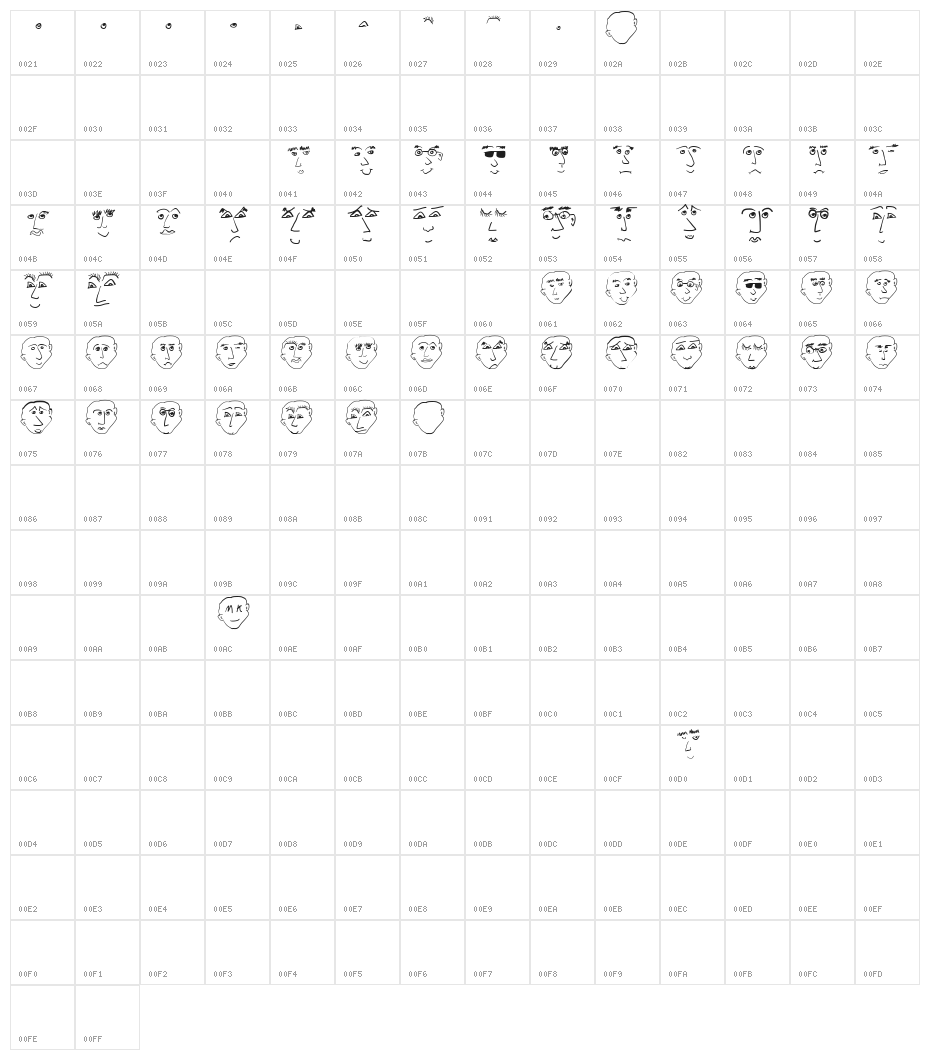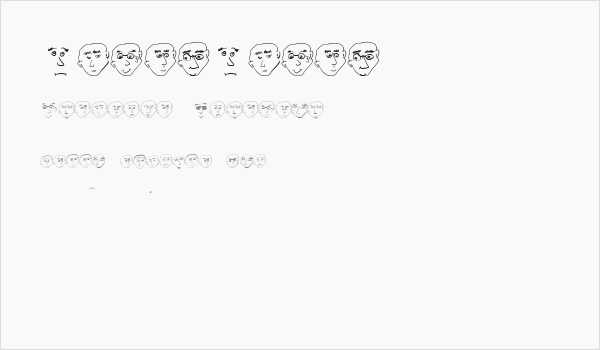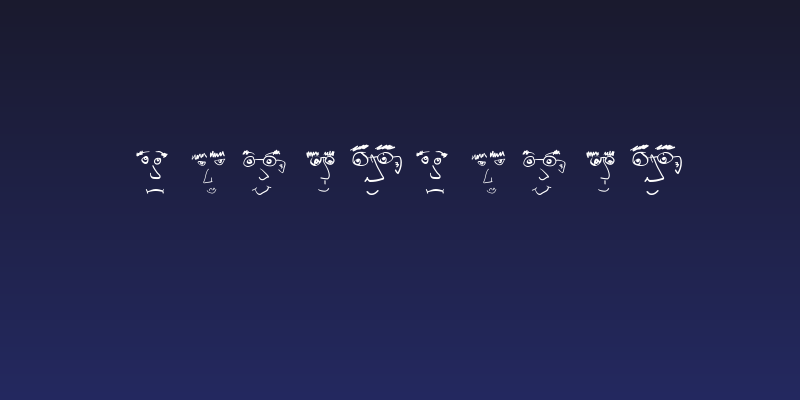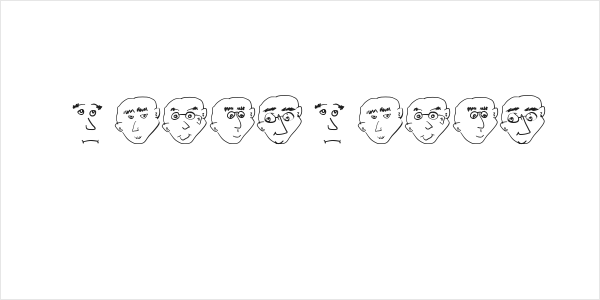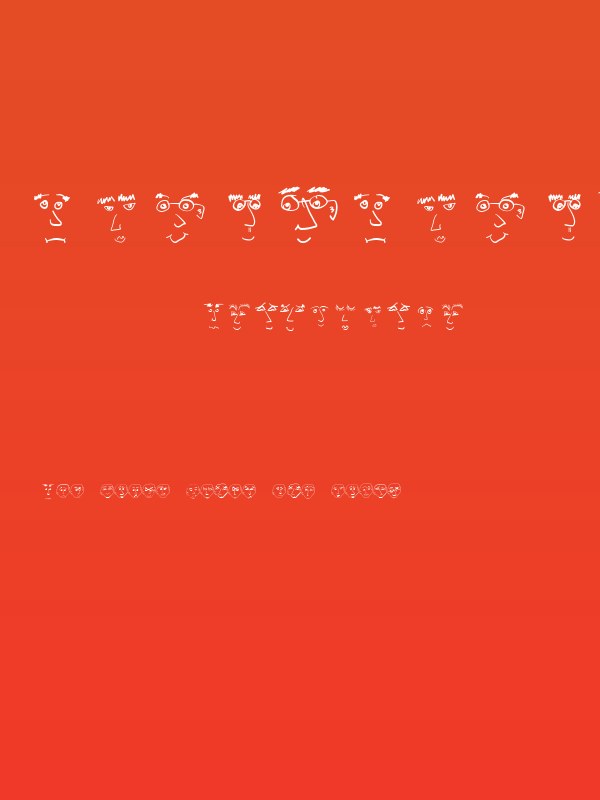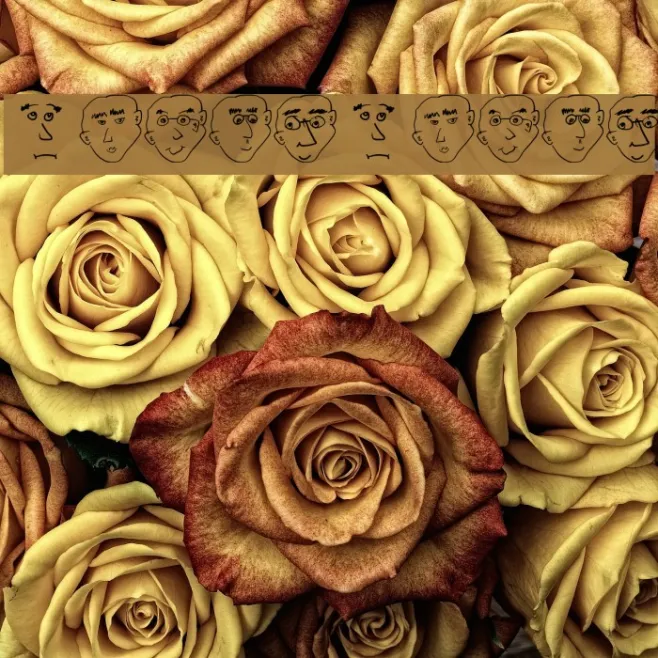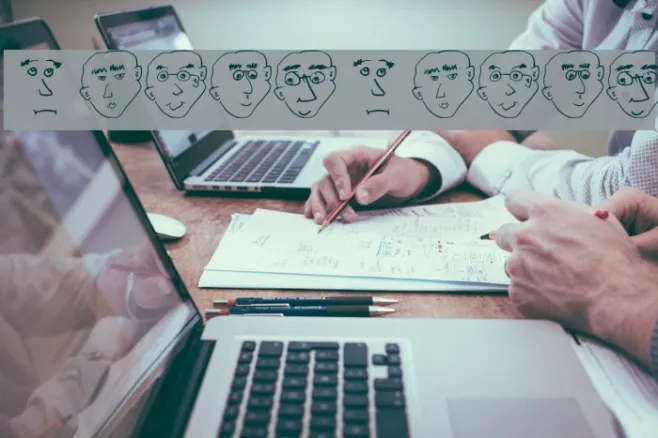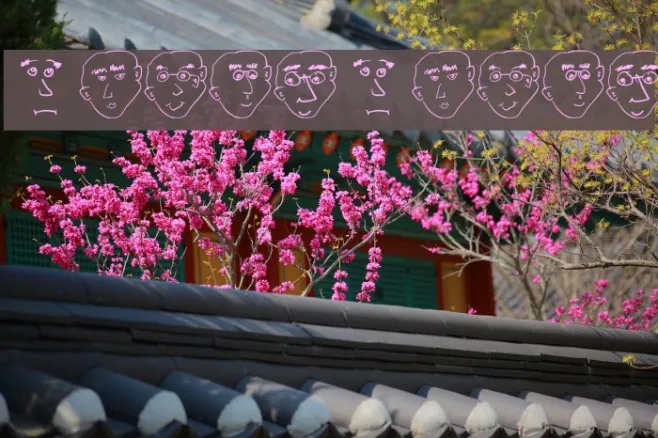
FacesFaces Font
FacesFaces Description
A whimsical, hand-drawn decorative font where each character is represented by a unique cartoon face or facial feature, featuring playful line work and expressive details. The style is informal and highly illustrative, with each letter and symbol having distinct personality traits.
| Overall Style | Decorative, Whimsical, Playful |
| Use Case | Headlines, Posters, Logos, Themed Events |
| Proposed Projects | Children’s books, party invitations, comic strips, playful branding, educational materials. |